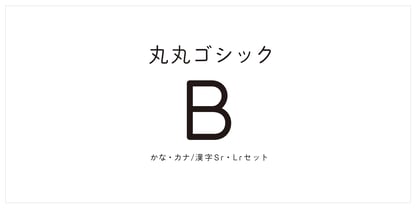
MaruMaru Gothic B_Sr
There are two variations of Marumaru Gothic. Sr, with its small rounded corners, is precise, while Lr, with its large rounded corners, gives a generous, relaxed impression. The fun of the Kanji characters changing from one to the other is unparalleled. Enjoy the typography that changes with the text. There are three types of kana. Kana B has a solid, non-habitual design. It is easy to use and highly versatile.